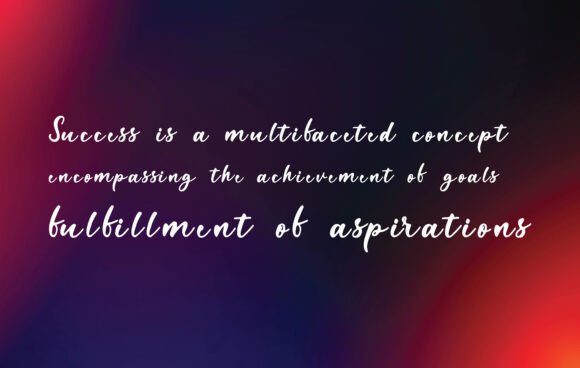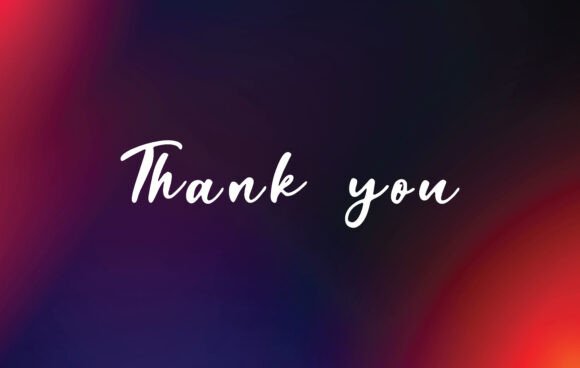
Ariella Font: Elevate Your Creative Projects with this Lovely Handwritten Font
Are you a designer, craftsperson, or creative looking for a font that can take your projects to the next level? Look no further than Ariella Font, a beautiful and lovely handwritten font that is sure to impress. With its unique charm and character, Ariella Font has the potential to elevate your creative ideas and make them shine.
What Makes Ariella Font So Special?
Ariella Font is a carefully crafted handwritten font that boasts a distinctive and elegant style. Its flowing lines, curves, and subtle imperfections give it a personal and human touch that is perfect for creating eye-catching logos, branding, and quotes. Whether you’re working on a personal project or a client’s, Ariella Font is the perfect choice for adding a touch of sophistication and whimsy.
Ariella Font is incredibly versatile and can be used for a wide range of creative projects. Here are just a few ideas to get you started:
- Quotes and Typography: Add a touch of elegance to your quotes and typography with Ariella Font’s beautiful, flowing script.
- Stationery and Invitations: Make your stationery and invitations stand out with a font that’s both stylish and sophisticated.
- Digital and Print Media: Use Ariella Font in your digital and print media, such as brochures, flyers, and social media graphics.
Why Choose Ariella Font?
So, why should you choose Ariella Font for your creative projects? Here are just a few reasons:
- Unique and Eye-Catching: Ariella Font is a one-of-a-kind font that will set your projects apart from the rest.
- Easy to Read: Despite its elegant and cursive style, Ariella Font is surprisingly easy to read, making it perfect for body text and quotes.
- Highly Versatile: Ariella Font can be used for a wide range of projects, from logos and branding to stationery and digital media.
- Professional and Personal: Ariella Font strikes the perfect balance between professionalism and personality, making it ideal for both personal and client projects.
Tips for Using Ariella Font
To get the most out of Ariella Font, here are a few tips to keep in mind:
- Experiment with Sizes and Colors: Don’t be afraid to experiment with different sizes and colors to find the perfect combination for your project.
- Mix and Match with Other Fonts: Try pairing Ariella Font with other fonts to create a unique and interesting contrast.
- Pay Attention to Kerning and Spacing: Make sure to adjust the kerning and spacing to ensure that your text looks professional and polished.
In conclusion, Ariella Font is a beautiful and lovely handwritten font that has the potential to elevate your creative projects to new heights. With its unique charm, versatility, and ease of use, Ariella Font is the perfect choice for designers, craftspersons, and creatives looking to add a touch of elegance and whimsy to their work. So why wait? Give Ariella Font a try today and see the difference it can make!